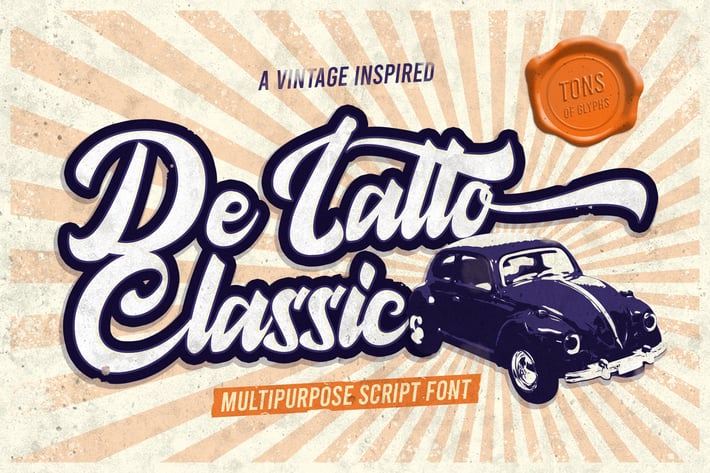
De Latto Classic is a Script font with the vibe of Vintage Style. It is perfect for Vintage brand, Retro, Classic, Fashion, artist, blogging, social media, Lifestyle, Chocolate products, Coffee Products, Cake, movie poster and more.
De Latto Classic Font includes full set of gorgeous uppercase and lowercase Cyrillic and English letters, multilingual symbols, numerals, punctuation and ligatures.
There were created 71 Alternates (you can see them among preview pictures).
Features of De Latto Classic Typeface;
- Tons of glyphs (261 total glyphs)
- Tons of alternates (71 total alternates)